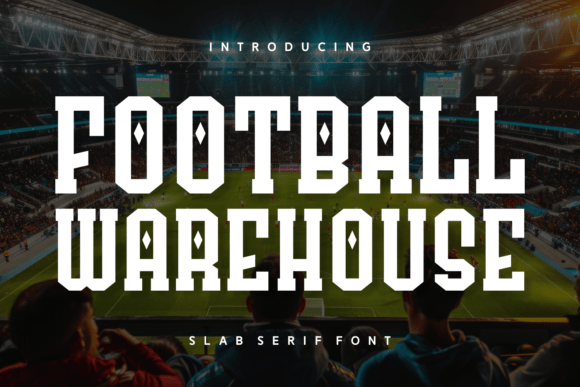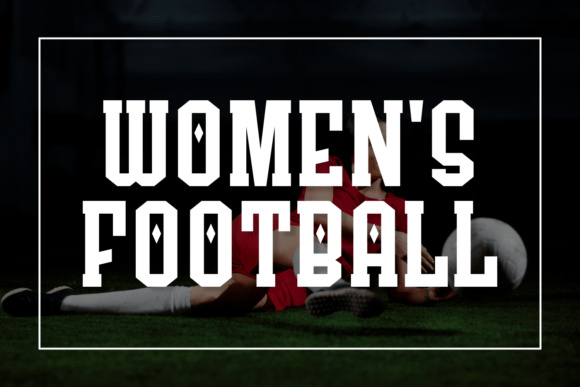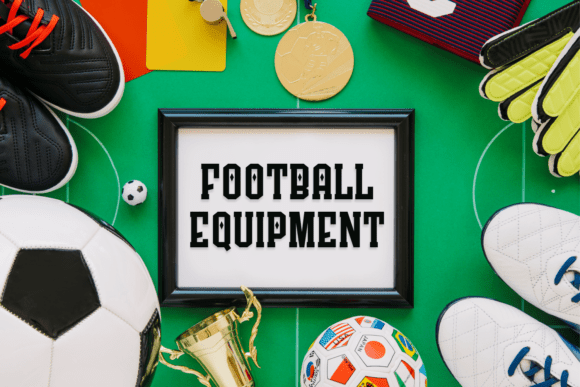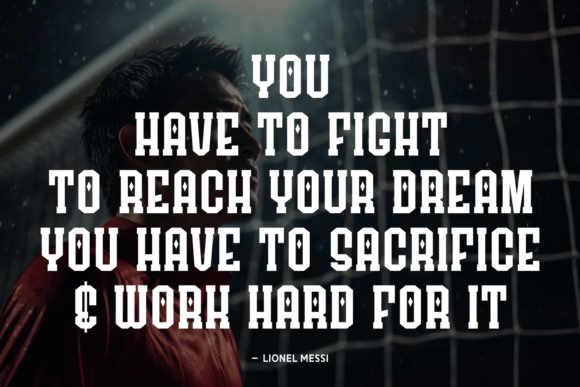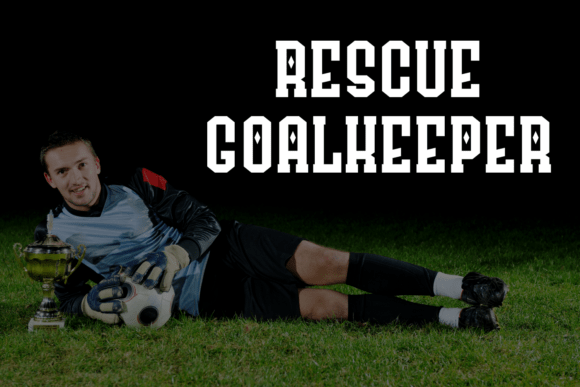
Unleash Your Creativity with Football Warehouse Font
Imagine you’re brainstorming ideas for a new project, and suddenly, a spark of inspiration strikes – you envision a bold, eye-catching logo that perfectly captures the essence of your brand. This is the moment when the right font can make all the difference. Enter the Football Warehouse Font, a versatile Slab Serif font designed to bring your creative vision to life. With its unique blend of modernity and classic appeal, this font is perfect for a wide range of applications, from book covers and corporate branding to bespoke greetings cards and catchy logos.
The Football Warehouse Font is a valuable tool for designers, offering unparalleled flexibility and adaptability. Whether you’re working on a magazine, poster, or promotional material, this font can help you craft a unique edge that sets your project apart. With 7 types to choose from, you can experiment with different styles and silhouettes to find the perfect fit for your design. The result is a stunning visual representation that exudes power, style, and elegance – the hallmark of a truly exceptional design.
Football Warehouse Font Key Features
- Font Family: Football Warehouse is a unique, custom-designed font that captures the spirit of American football.
- Unique Characteristics: The font features custom-designed letterforms, numerals, and punctuation marks that evoke the feeling of football fields, stadiums, and jerseys.
Designer Review: Football Warehouse Font
Overall, I’d say the Football Warehouse Font is a solid choice for sports-themed designs, but it’s not without its limitations. Let’s dive in and see what works well and what doesn’t.
- The font’s energetic and dynamic feel makes it perfect for energetic and bold designs, such as football team logos or match-day promotions.
- The font’s custom letterforms and shapes add a unique touch to the design, making it stand out from more generic sans-serif fonts.
- The font’s scalable design ensures it looks great in both large and small sizes, making it versatile for a range of applications.
- The font’s bold and playful style may not be suitable for more formal or professional designs, such as business cards or corporate reports.
- The font’s limited character set may not be ideal for extended text-based designs, such as articles or blog posts.
- The font’s custom design may not be easily readable in certain contexts, such as on small screens or in low-light environments.
The Football Warehouse Font is a great choice for sports-themed designs that require a bold and energetic feel. However, it may not be the best choice for more formal or professional designs. With its unique custom design and scalable nature, it’s a great option for designers who want to add some excitement to their work.
Tip: Use Football Warehouse Font for titles and headings to add a touch of sports-themed flair to your designs.
Tip: Use Football Warehouse Font for sports-themed graphics and logos to give them a unique and eye-catching look.
Tip: Use Football Warehouse Font for sports-themed presentations and documents to add a touch of professionalism and style.
Football Warehouse Font is commonly used for:
- Sports-themed graphics and logos
- Sports team branding and marketing materials
- Sports-themed presentations and documents
- Sports merchandise and apparel